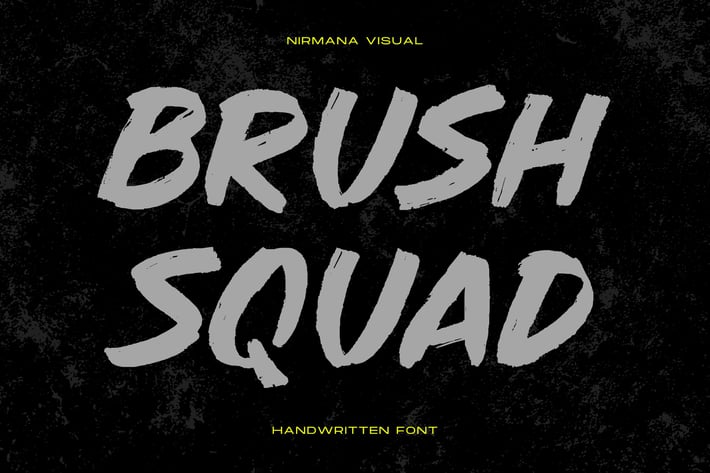
Brush Squad - Logo Font
Brush Squad is a Dry Brush Handwritten typeface, full set of lowercase and uppercase letters, numerals and punctuation, multilingual symbols.
Very suitable for the title, logo, typography, clothes, magazines, brochures, packaging and much more for your design needs, making your designs more modern and professional.